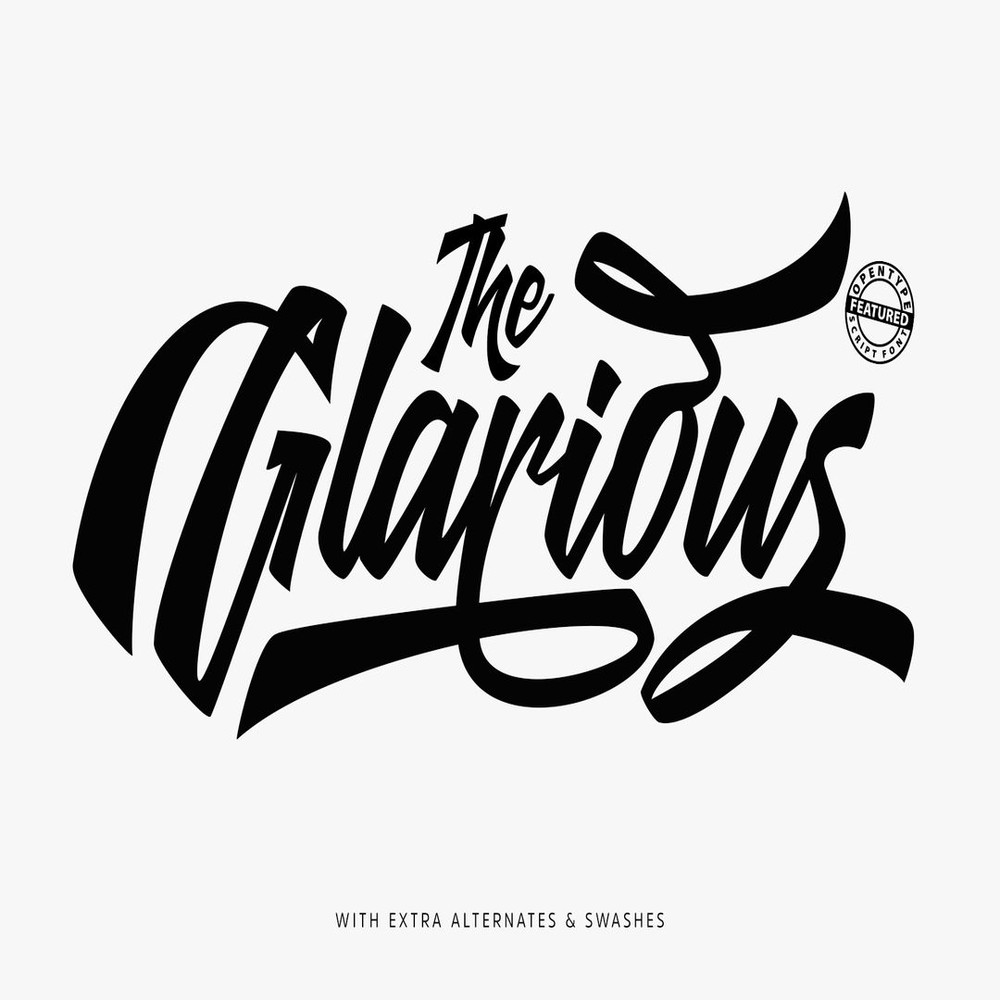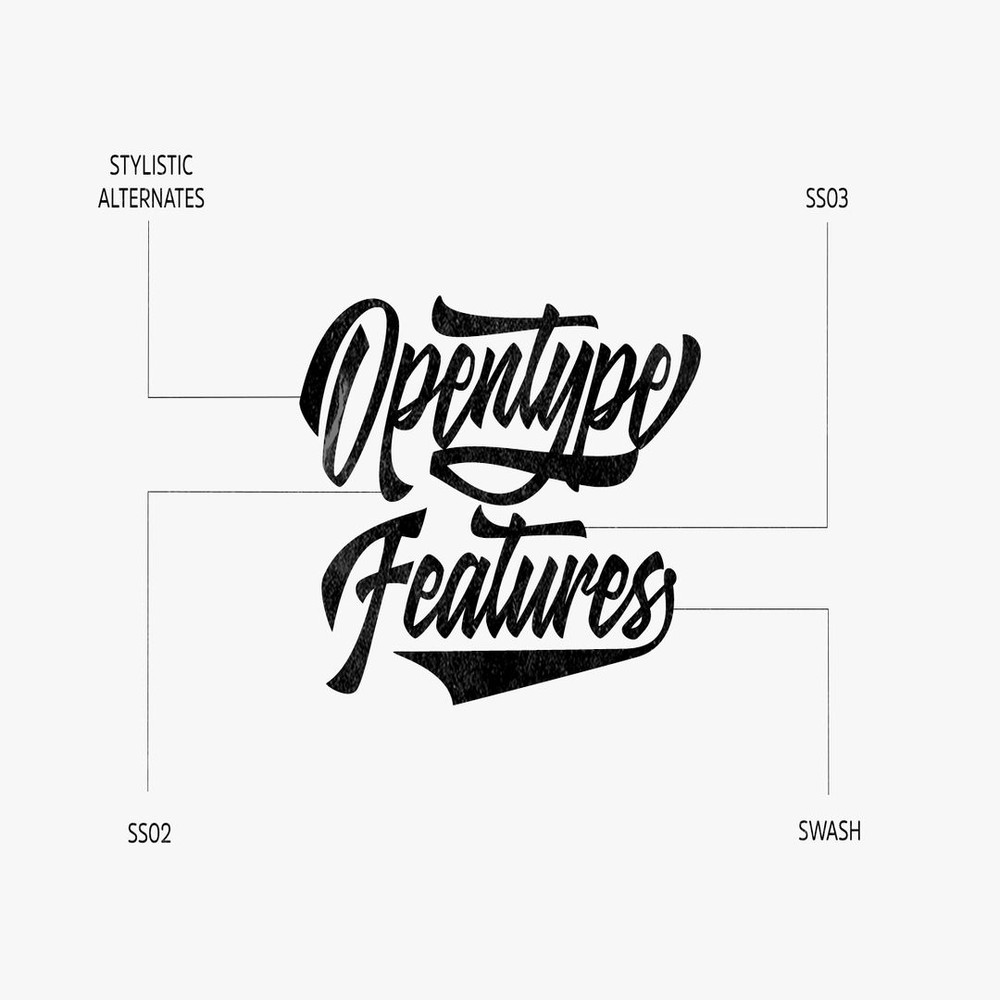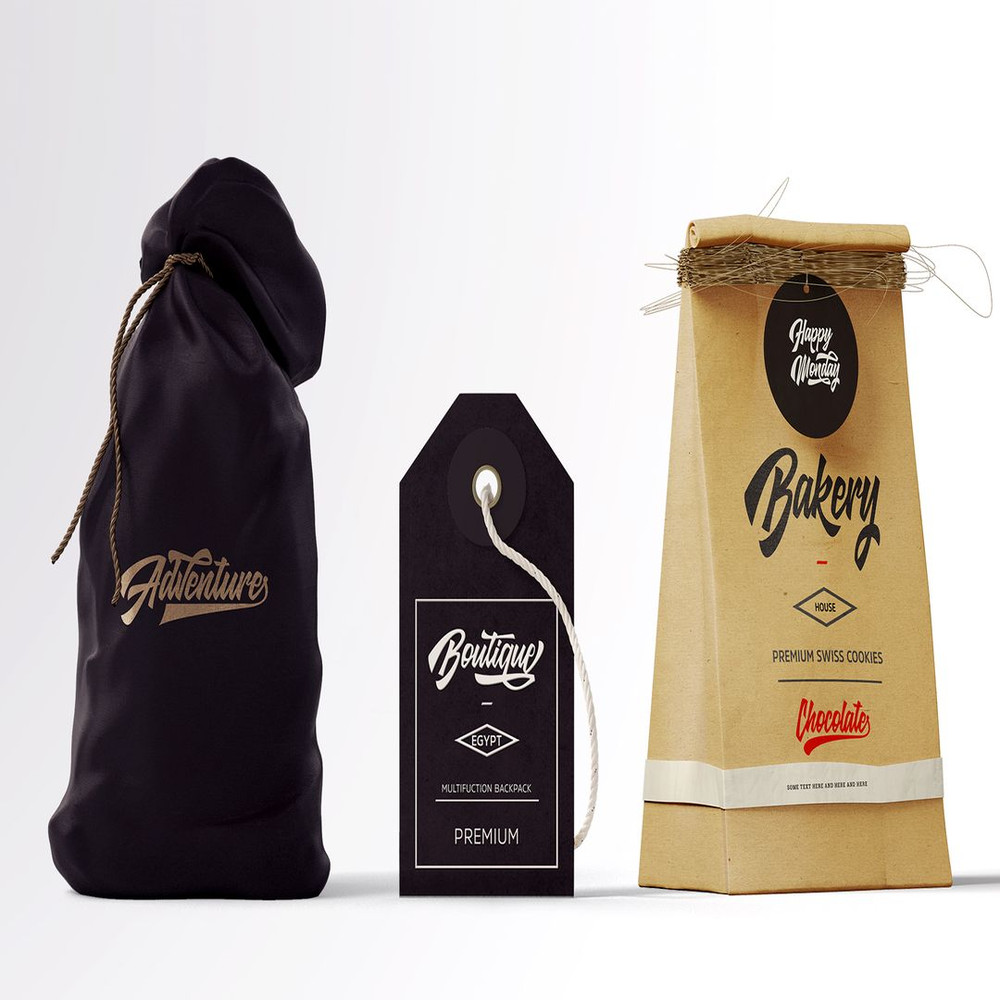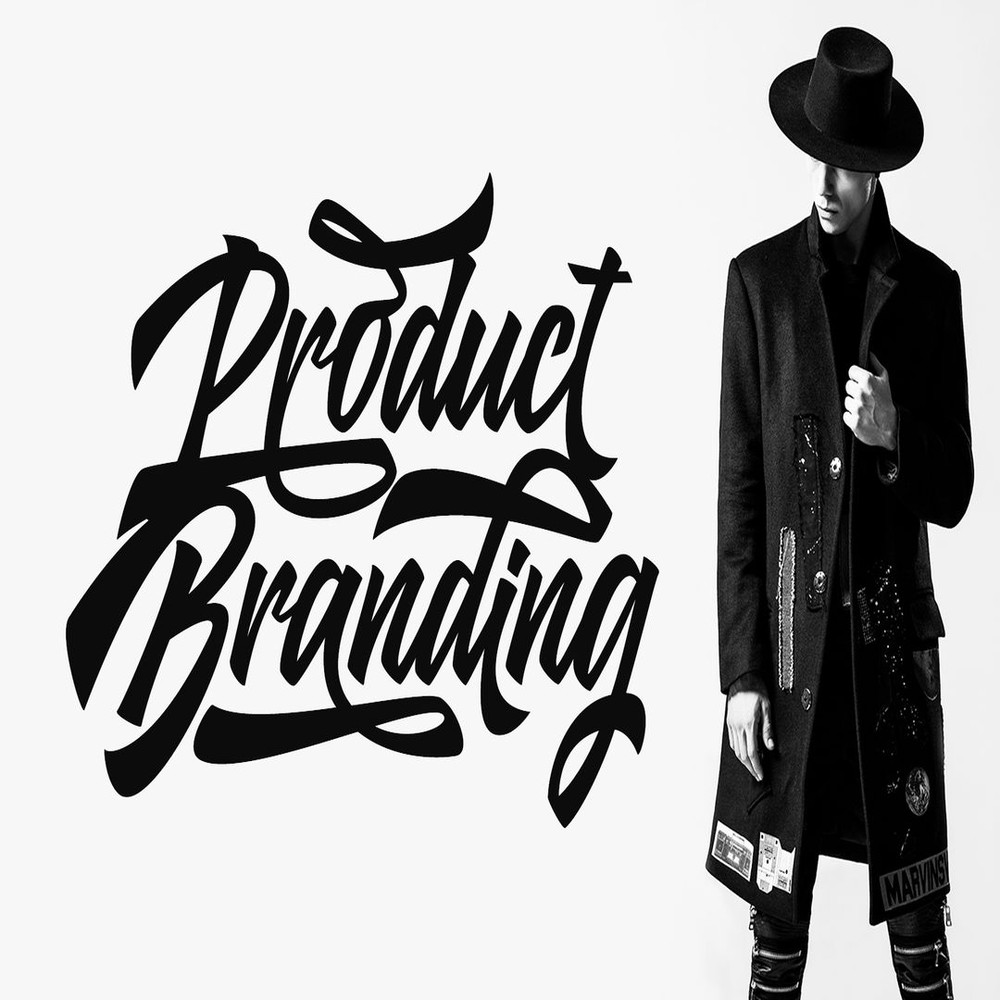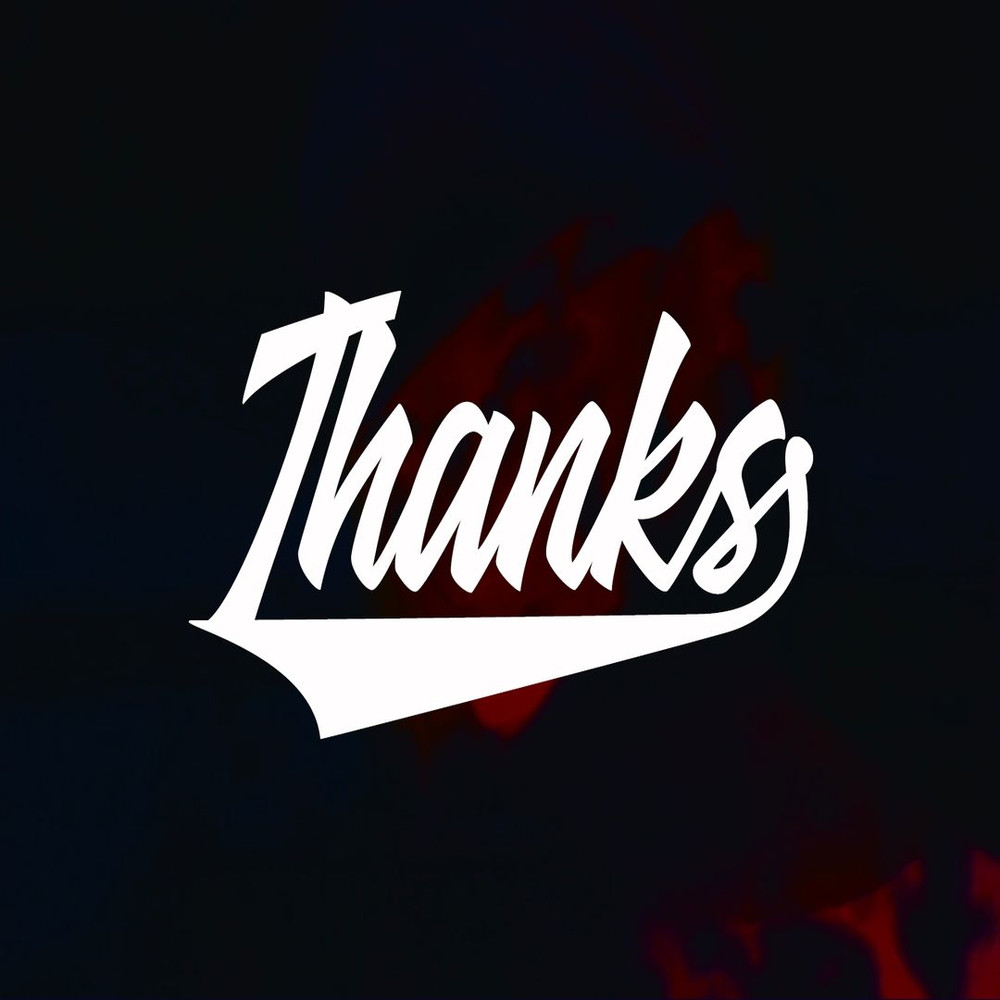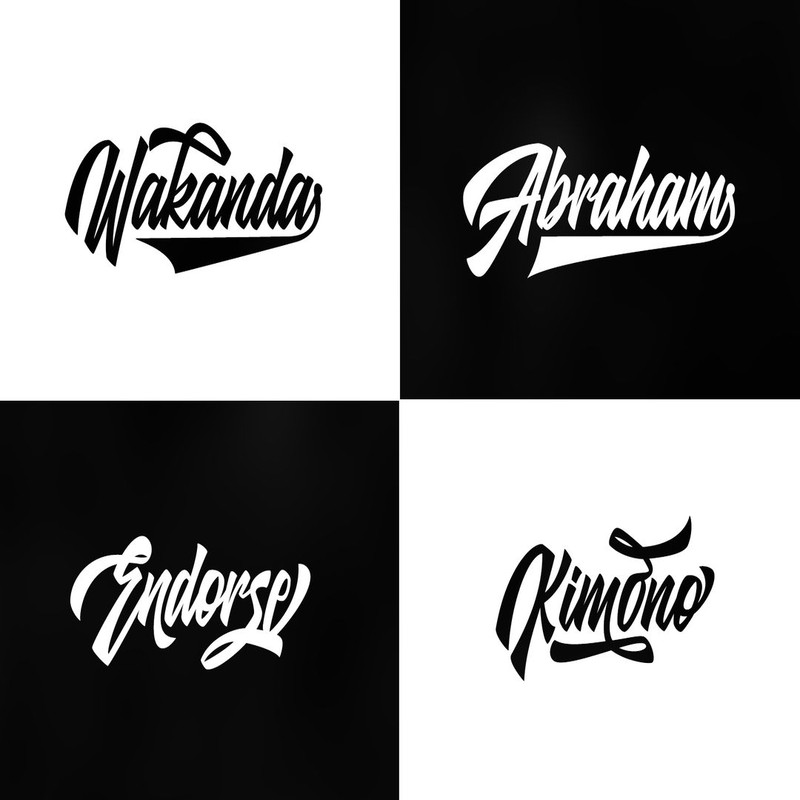
Glarious Script Trending Fonts - Digital Font
Glarious is a calligraphy font that perfect for you who needs a typeface for especially logotype, apparel, invitation, branding, packaging, advertising etc. This typeface is comes in uppercase, lowercase, punctuations, symbols & numerals, stylistic alternates, swashes, also support multilingual and already PUA encoded. Foreign Languages Support: Every uppercase and lowercase have their alternates, so you can custom your word as you want with this OpenType features.